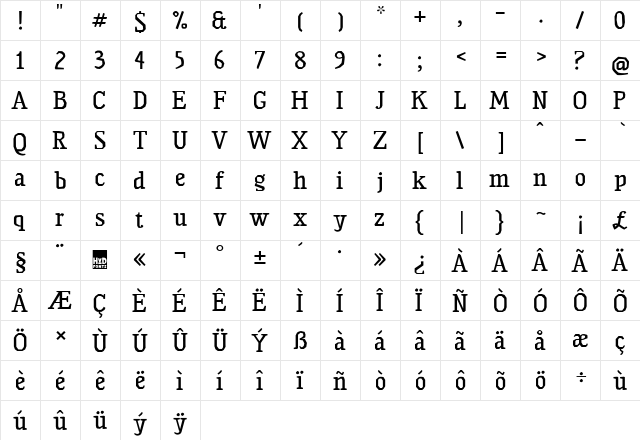
HVD Rawcut Regular
| Foundry | Hannes von Dڨren |
| Designer | Hannes von Dڨren |
Design Context for HVD Rawcut Typeface
HVD Rawcut takes a measured approach to typography — its balanced proportions and neutral character make it a reliable workhorse for both digital and print work.